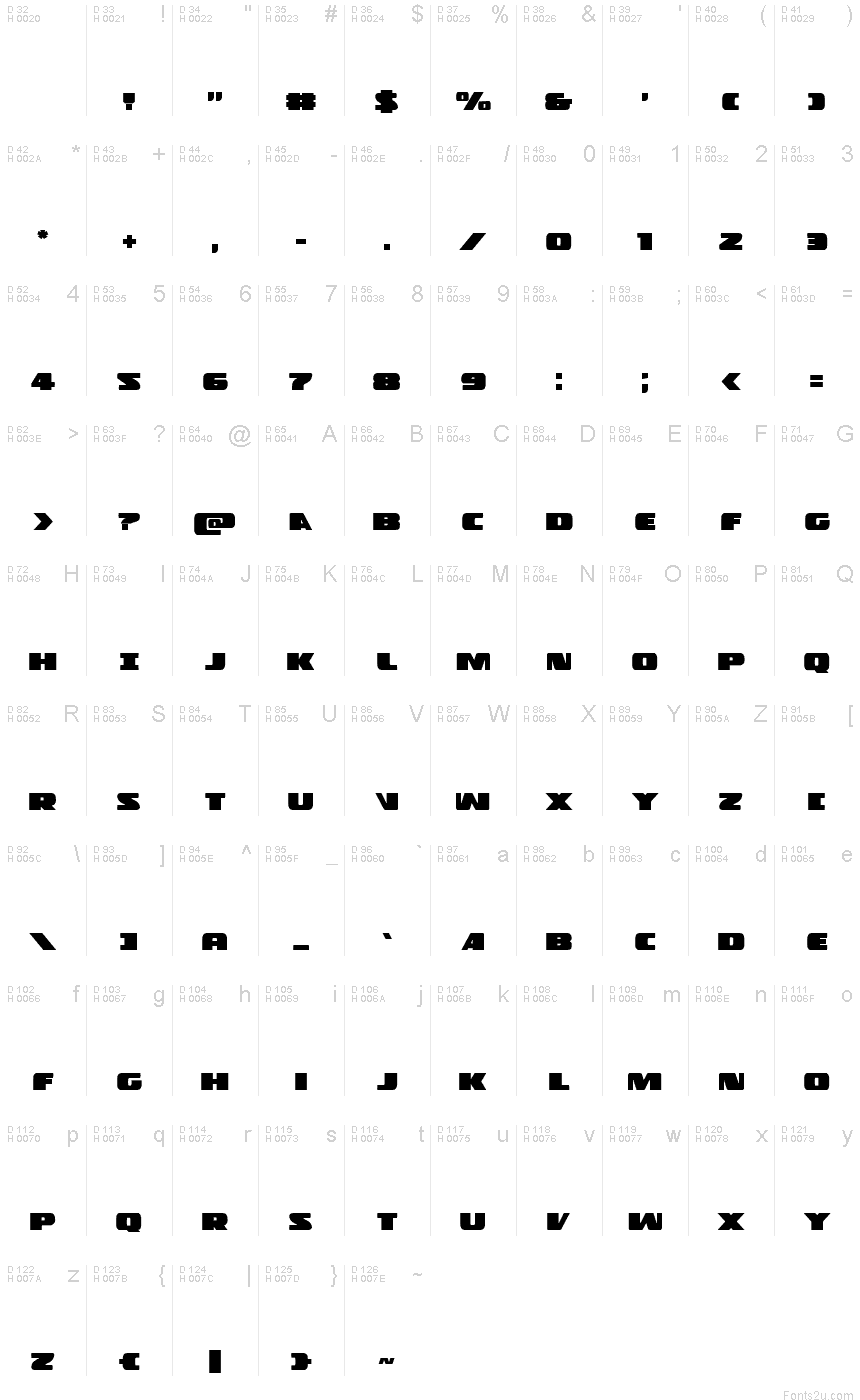
Police Cruiser, designed in 2012 by Iconian Fonts, is a free modern display font with an exceptionally broad, heavy build. Rounded corners soften its squared silhouettes. Narrow cut-ins and compact openings give the lettering a machined, custom-cut appearance.
It suits motorsport branding and action-game graphics because the low, weighty forms resemble lettering stamped into vehicle bodywork. The same automotive edge also belongs on racing merchandise, event posters, and packaging for garage or performance products.